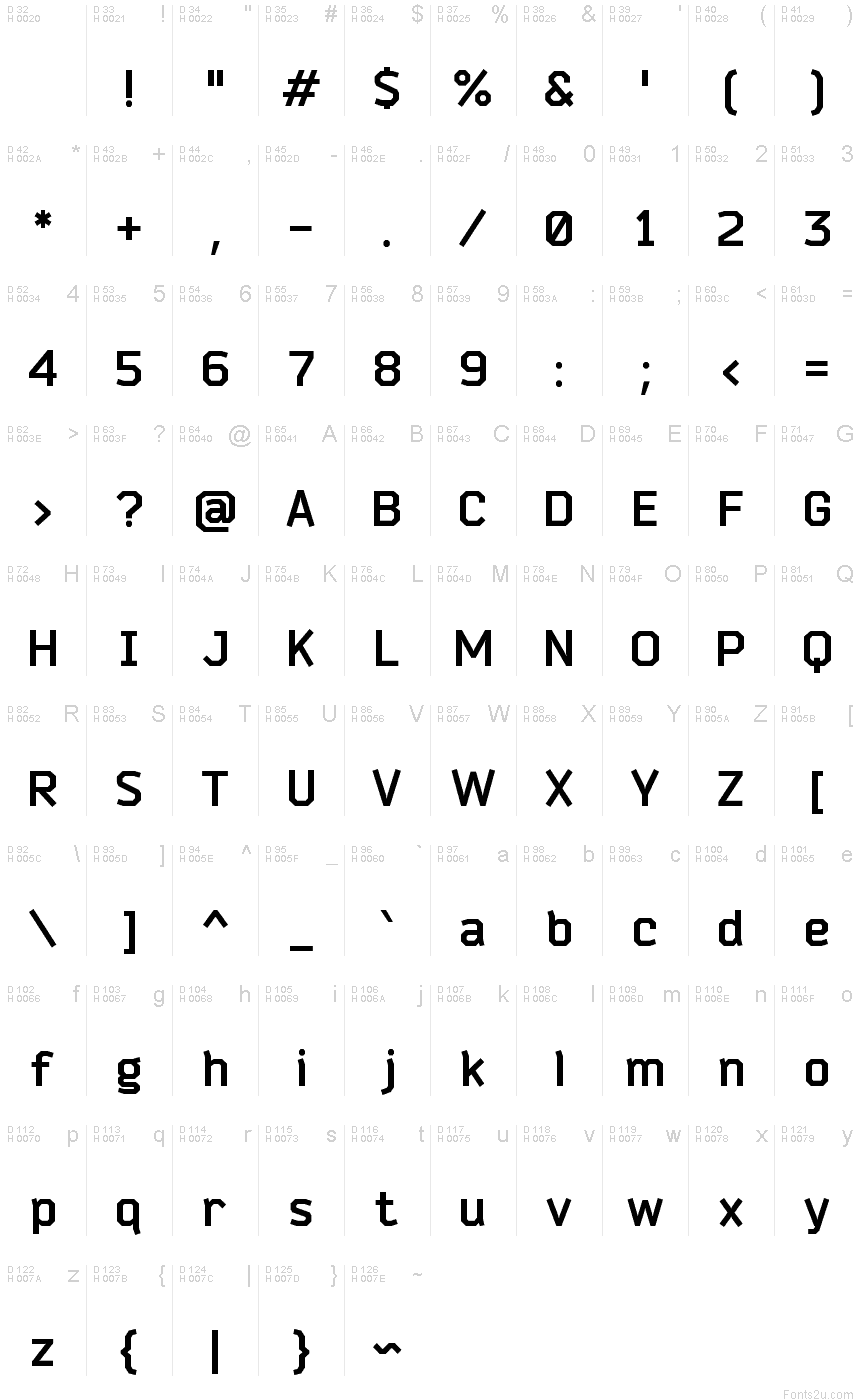
Bender Bold by Oleg Zhuravlev and Gladkikh Ivan is a free techno display font built from broad, angular, evenly weighted strokes. Clipped corners, boxy curves, and tight joins give the letters a dense machined silhouette with a strong industrial edge.
Gaming studios and electronics brands could adopt it for logos, packaging, and launch graphics built around an engineered look. It also suits event posters and merchandise. The sharply cut forms connect these applications to science fiction, robotics, arcade games, and futuristic transport imagery.